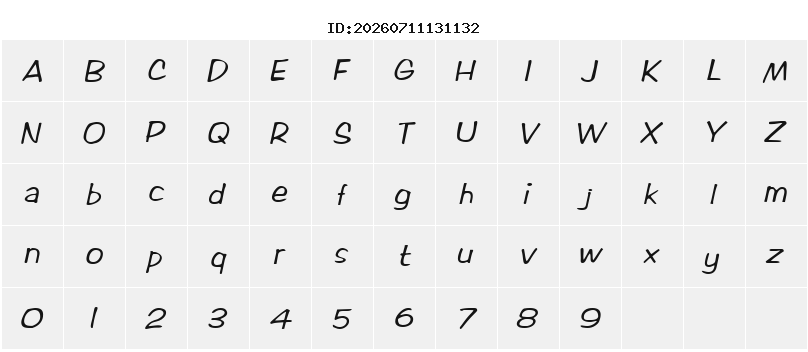
Marlo-Condensed Preview
• Font Name: Marlo-Condensed
• Font ID: Macromedia Fontographer 4.1 MarloCondensed Bold Italic
• Full Font Name: Marlo-Condensed Bold Italic
• Version: Macromedia Fontographer 4.1 9/20/96
• PostScript Name: Marlo-CondensedBoldItalic
About Marlo-Condensed.ttf
Marlo-Condensed.ttf is a modern, elegant sans-serif font designed for ultimate readability and visual harmony. Perfect for branding, headlines, web design, and print materials.